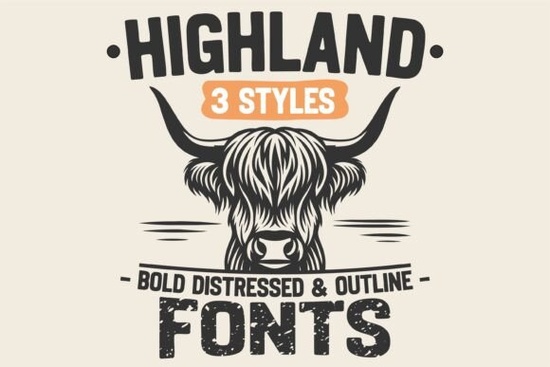
If you are building a western brand, designing farmhouse decor, or running a print-on-demand shop that leans into rustic themes, finding a reliable typeface can be tricky. The Highland Bundle Font solves that by offering three distinct styles in one download. Instead of switching between different files or adjusting tracking constantly, you get a matched set that shares the same structural foundation. Whether you are drafting a logo on an iPad or sending cut files to a desktop machine, this pack gives you layout flexibility without extra conversion steps.
How do the three included weights change your layout options?
Each variant handles a specific visual need, which saves you from buying separate lettering packs. The standard weight works as a solid anchor for headlines where readability matters most. If you want surface texture, the distressed version naturally breaks up clean edges to mimic weathered wood or stamped metal. For layering techniques or engraving effects, the hollow style lets you fill letters with floral patterns or solid background colors. You can download Highland Bold for clear titles, pair it with Highland Grit to add a worn-in feel, or use Highland Outline when you plan to apply intricate designs inside each character.
What products sell best when you pair rustic lettering with clean layouts?
Small shops often see the best results when they match the right weight to the right material. Canvas bags, wooden signs, and casual apparel naturally carry that outdoorsy aesthetic. For dye transfer prints on ceramics or metal, using the solid weight with dark ink keeps text legible. Mixing the distressed texture with simple line icons creates a balanced composition that feels intentional. To soften a rugged design for boutique branding, pairing your quote graphics with a softer, handwritten companion gives clear visual hierarchy. For modern storefronts that still want vintage appeal, combining these shapes with modern geometric options balances the look for broader audiences. You can also explore a clean varsity style for contrast on team gear, which layers nicely over textured backgrounds.
How do you avoid common cutting mistakes with textured type?
Weathered lettering often causes issues with plotters if the path nodes multiply during import. Always rasterize your distressed layers before sending them to a commercial printer, and adjust the threshold settings carefully so the software does not create fragmented cut lines. For the hollow variant, make sure your background fills extend slightly past the character boundaries to prevent thin gaps during pressing. Before full production, verify the tracking at smaller sizes. Wide spacing reads well on posters, but it often separates poorly on fabric patches or keychains. When you need to verify scaling across different product types, review this complete collection to see sizing examples that match standard retail dimensions.